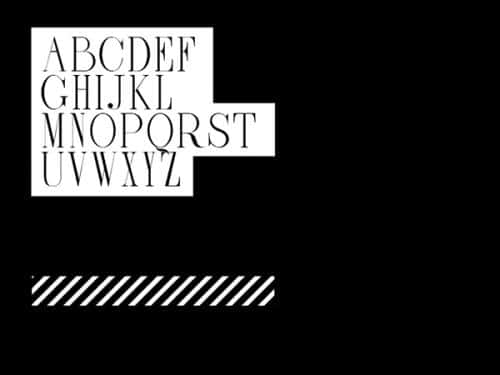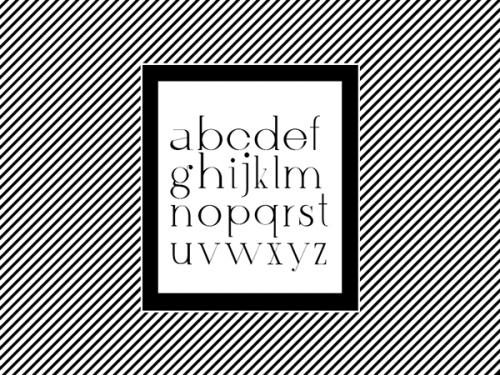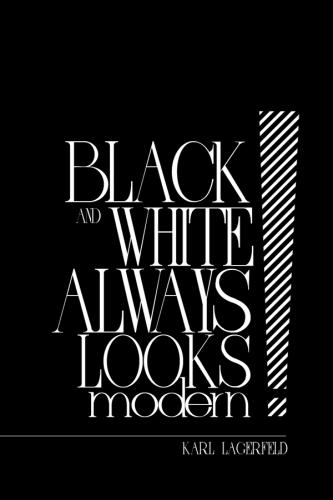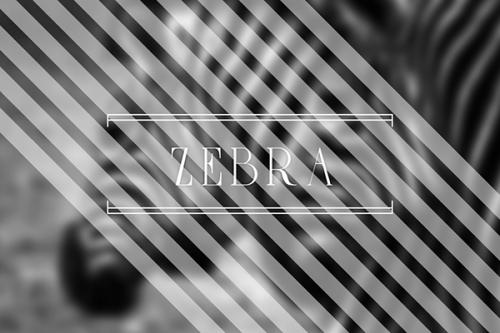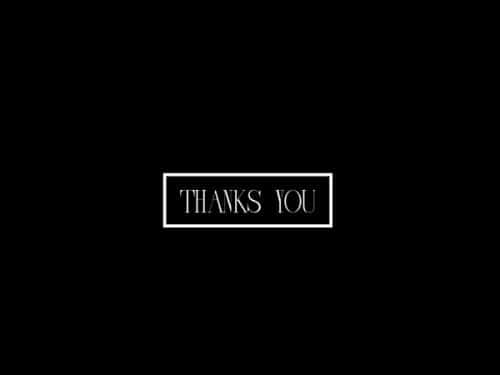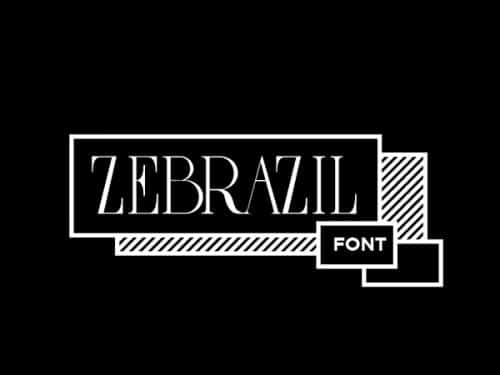
Zebrazil Font
Zebrazil Font is free font. Design by Zarni. November 2013. ZEBRAZIL is a serif font, with bold lines and stylized piece, generally very young and delicate, ZEBRAZIL suitable for magazine cover design, and many other things, you download and enjoy! you can search more similar font on Befonts!